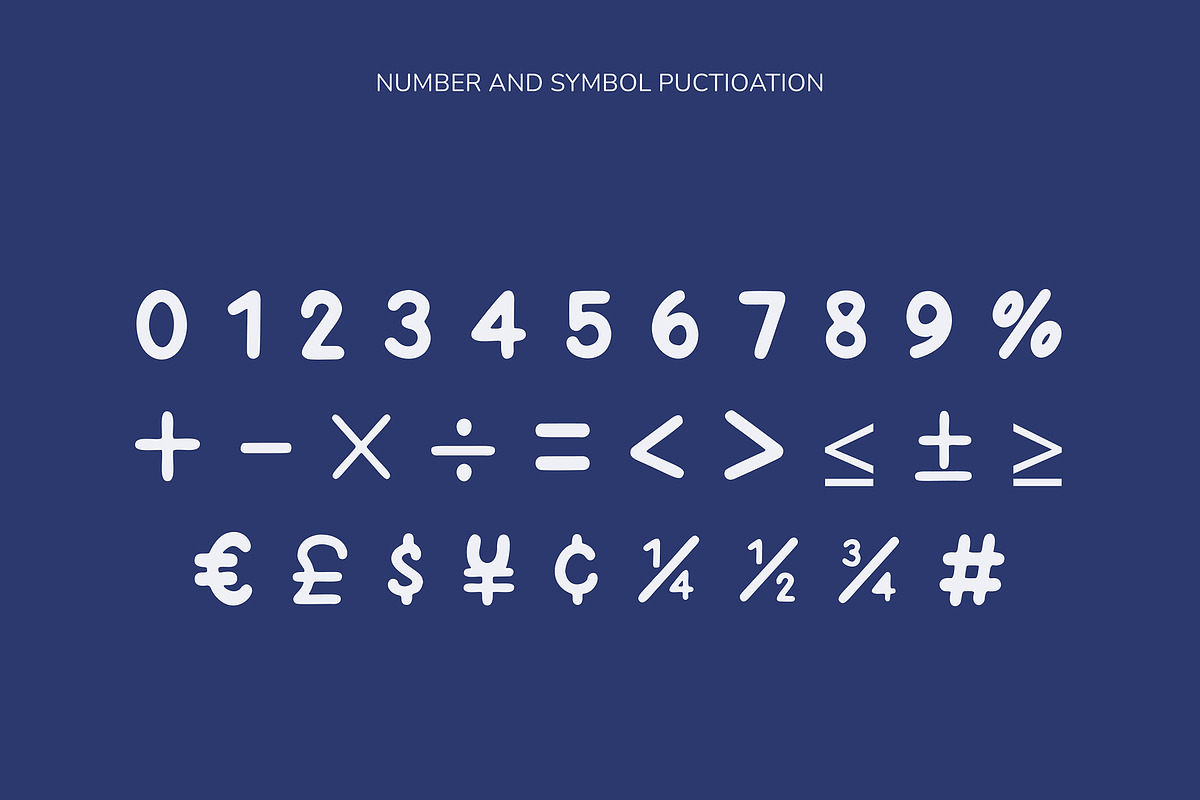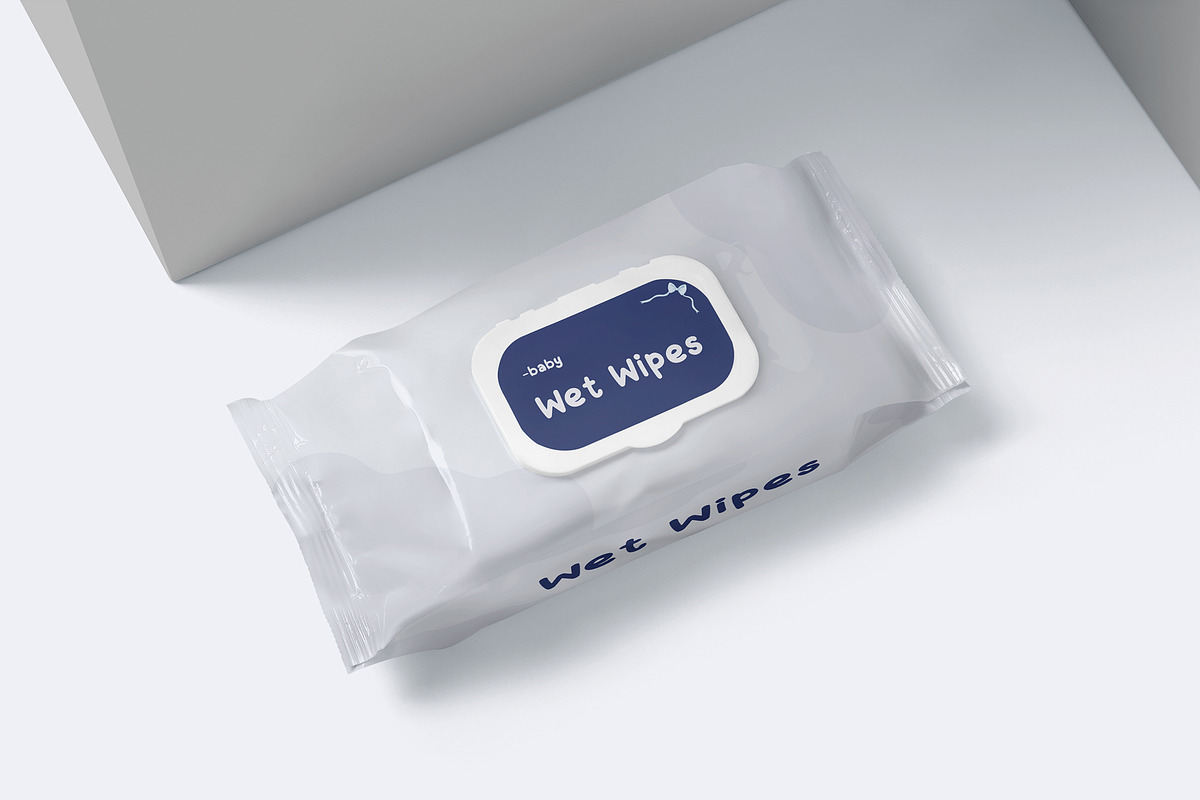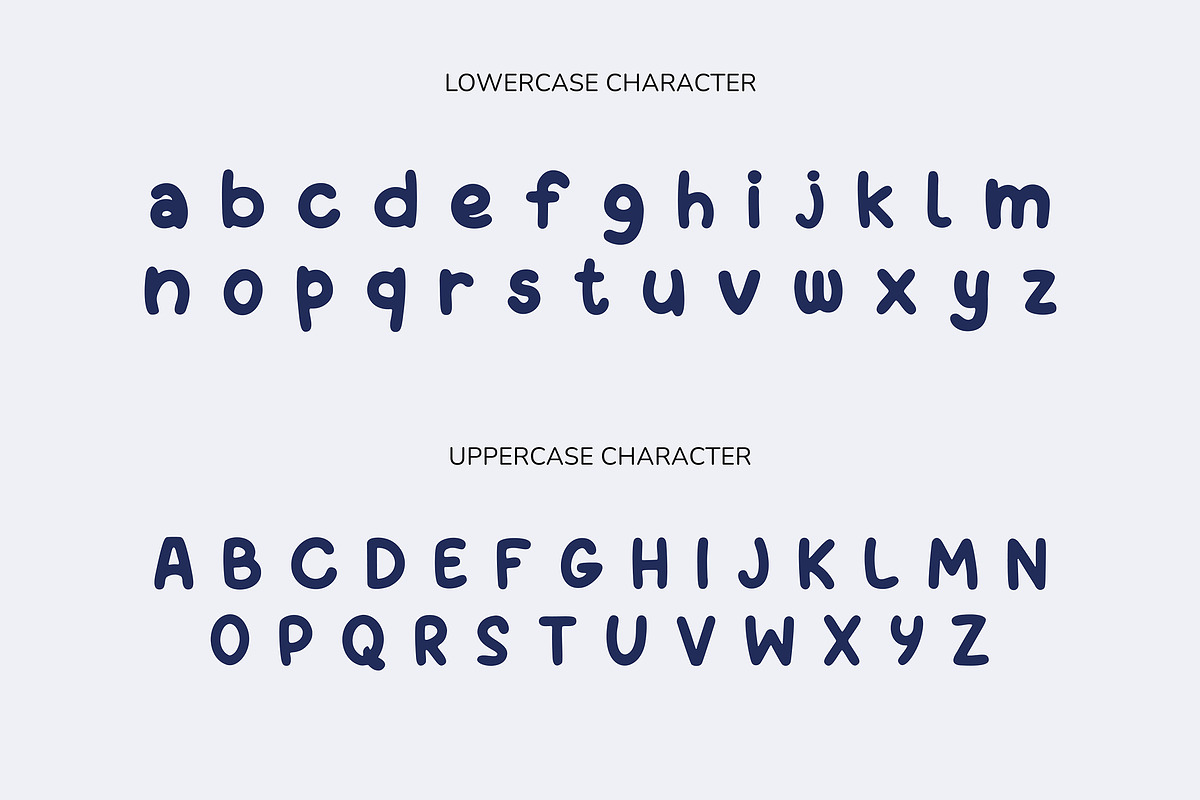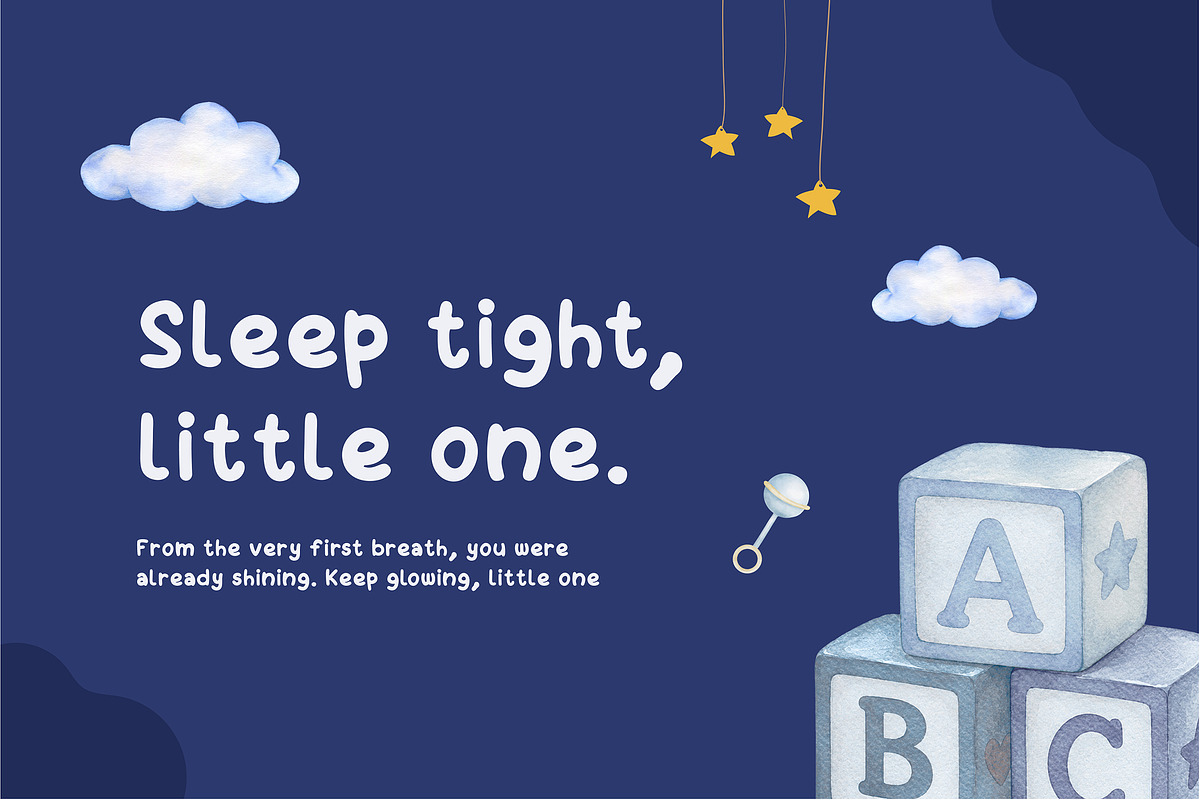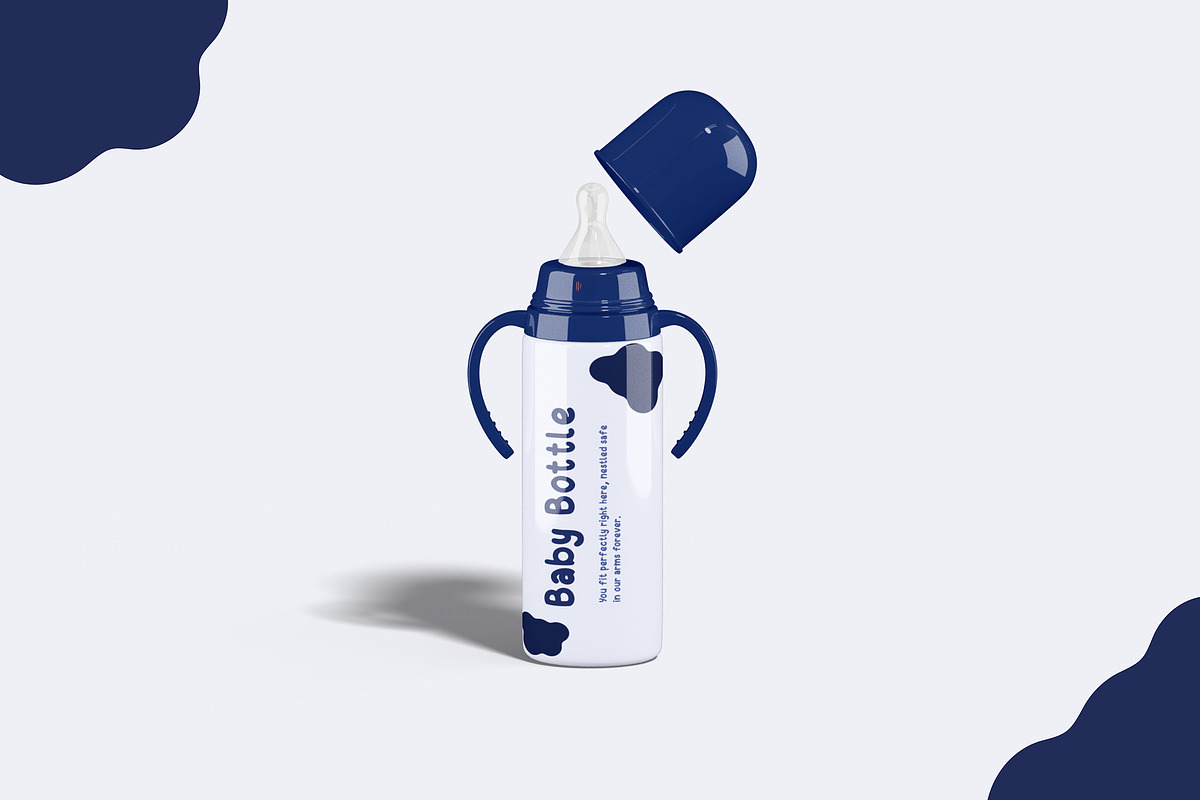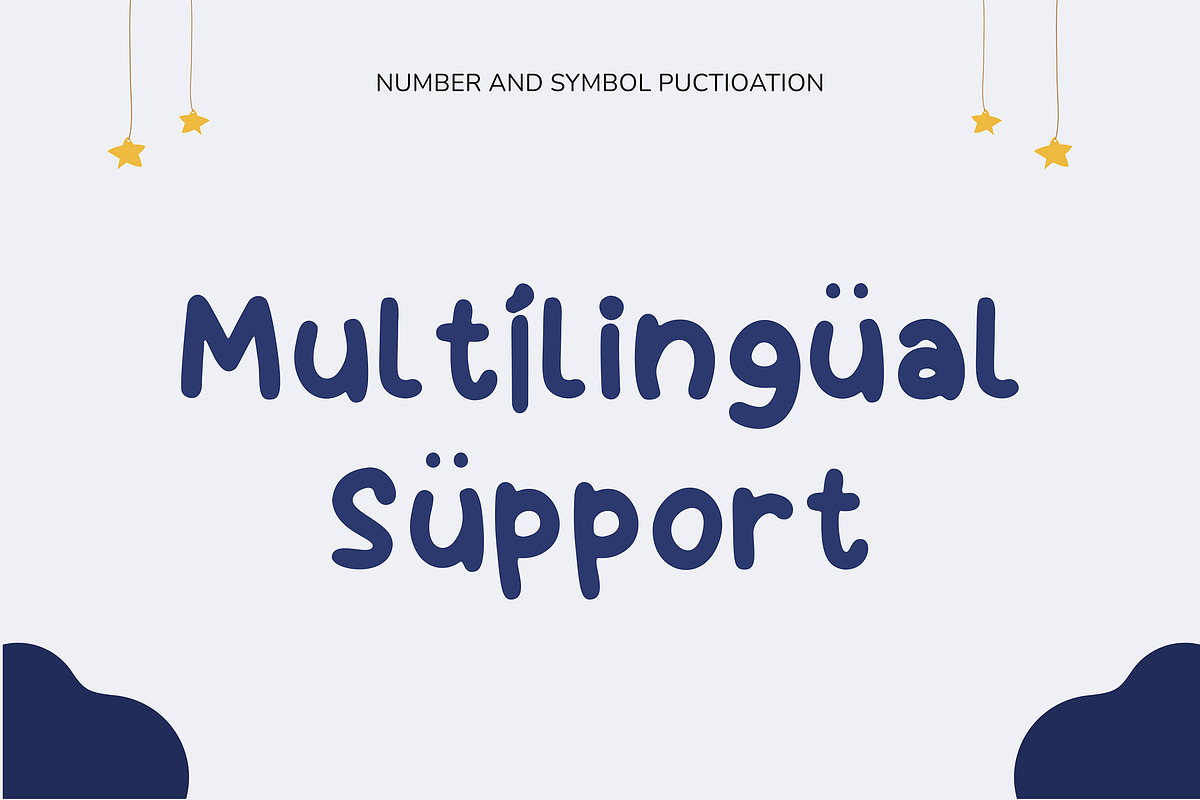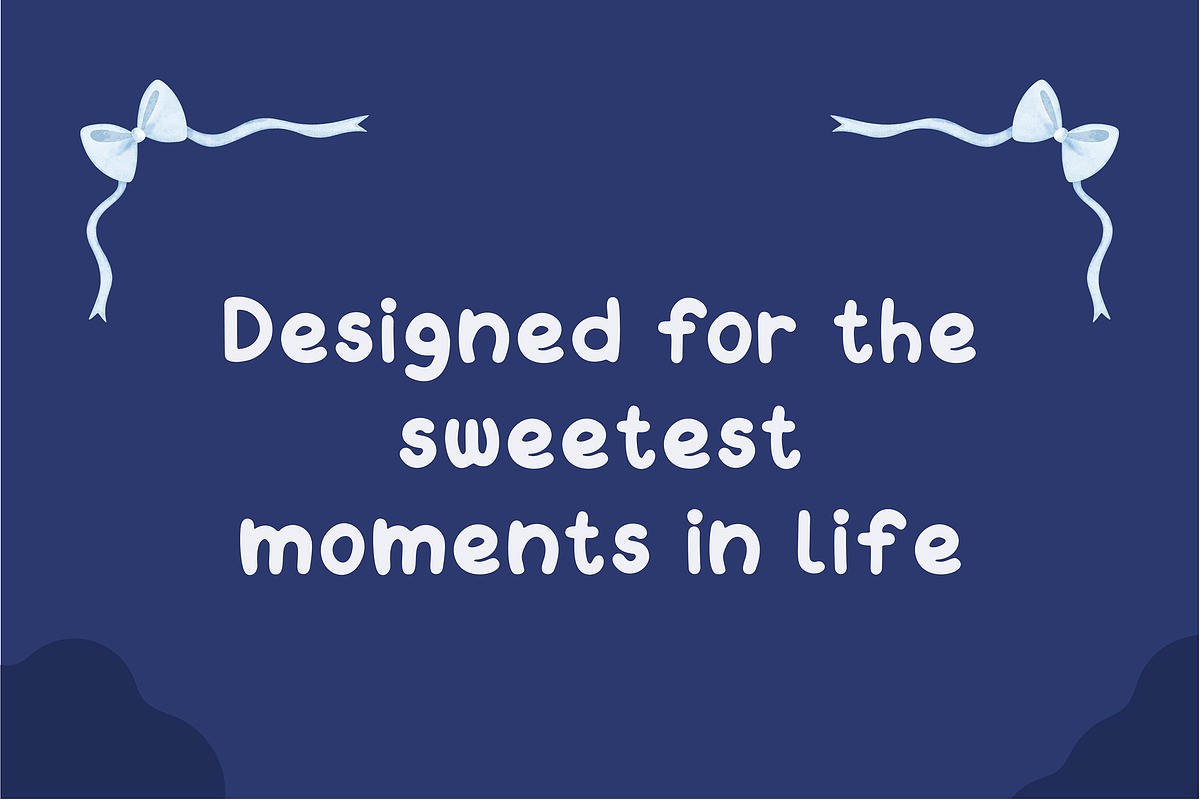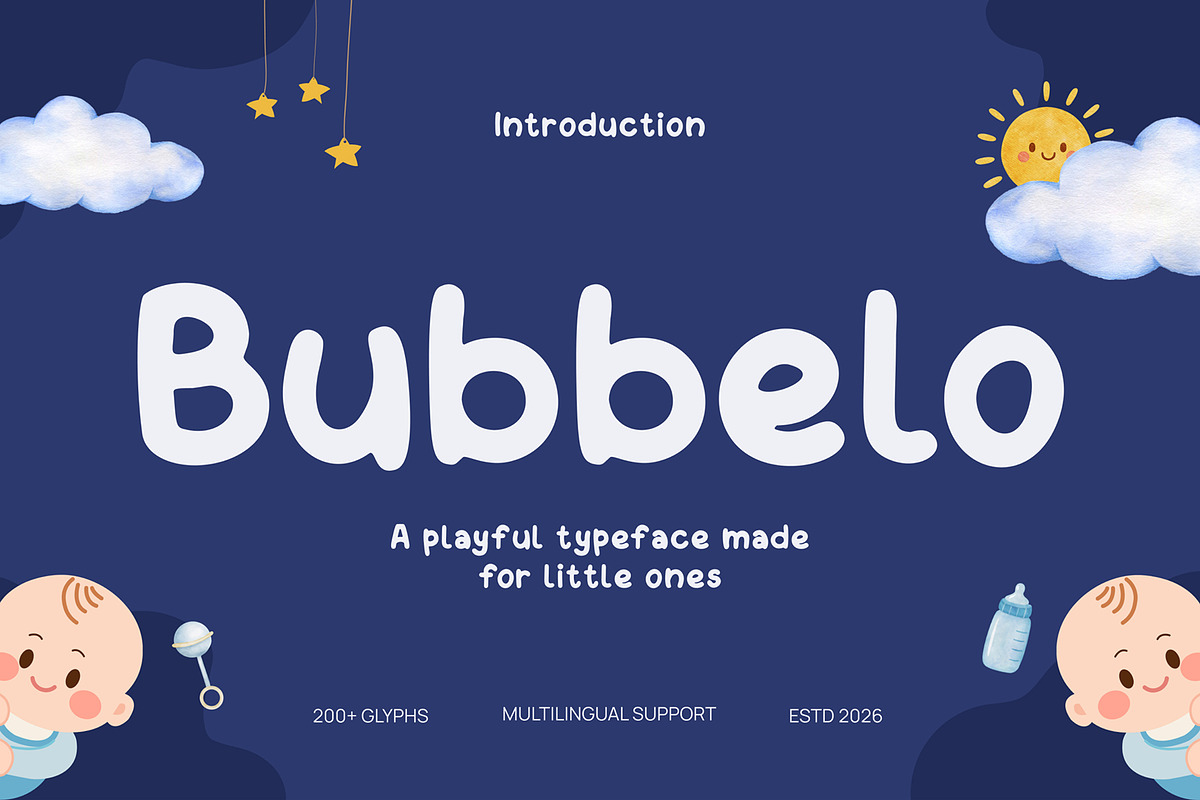
Baby - Bubbelo Font
Baby - Bubbelo Font is a playful rounded typeface designed to bring a warm, soft, and joyful touch to baby and children's projects. With its friendly curves, bubbly letterforms, and cheerful character, Bubbelo creates a clean aesthetic that feels gentle, fun, and full of love. Perfect for projects that aim to convey innocence, playfulness, warmth, and modern baby care.
Full Character Set: Uppercase, lowercase, numbers, symbols, and punctuation
From baby product brands to children's, Bubbelo adds a soft and playful character to every project. Its versatile rounded style makes it ideal for logos, product packaging, labels, baby branding, social media visuals, nursery projects, editorial layouts, kids' stationery, and organic baby product designs.